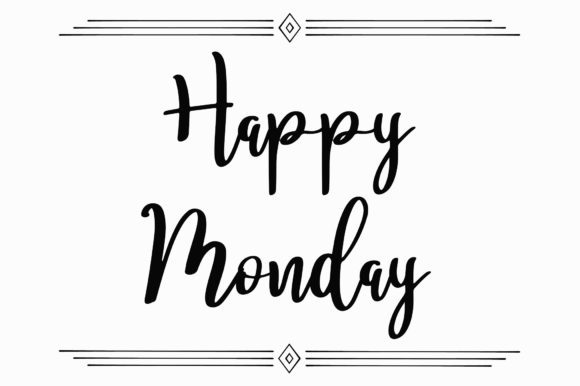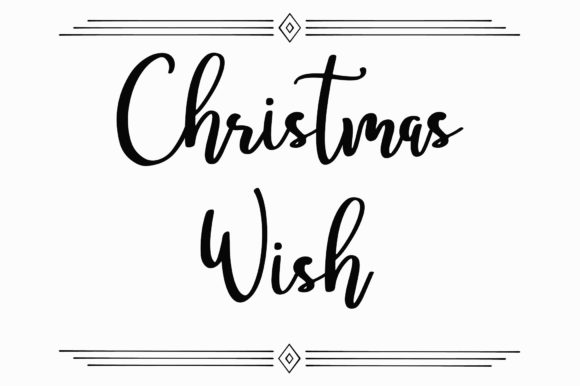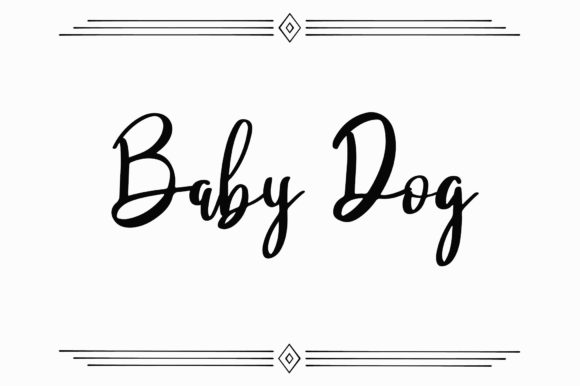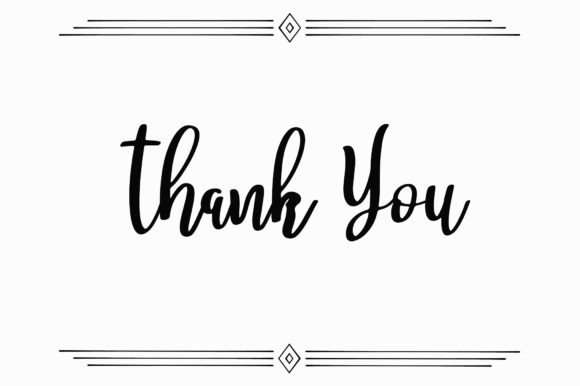
Sublimation Font
“Sublimation” is a romantic and sweet modern calligraphy typeface that brings a touch of elegance and charm to any design project. With its characters dancing along the baseline, this font exudes a sense of grace and sophistication, making it perfect for a variety of applications.
One of the standout features of “Sublimation” is its beautiful and flowing handwritten style, which adds a touch of personality and warmth to any design. Whether used for wall displays, wedding invitations, or social media post logos, this font creates a captivating visual impact that leaves a lasting impression.
From advertisements to product packaging, “Sublimation” enhances the overall aesthetic of any project with its romantic and sweet appearance. Its delicate strokes and graceful curves make it ideal for conveying messages of love and celebration, making it perfect for weddings, engagements, and other special occasions.
The font’s versatility allows it to seamlessly integrate into various design contexts, from labels and photography watermarks to invitations and stationery. Its impressive typography makes it suitable for a wide range of applications, allowing you to create stunning visuals that captivate your audience.
Overall, “Sublimation” is a versatile and elegant font that brings a touch of romance and sophistication to any project. Whether used for personal or commercial purposes, this font adds a sense of beauty and charm that elevates the overall aesthetic and makes your designs truly impressive.